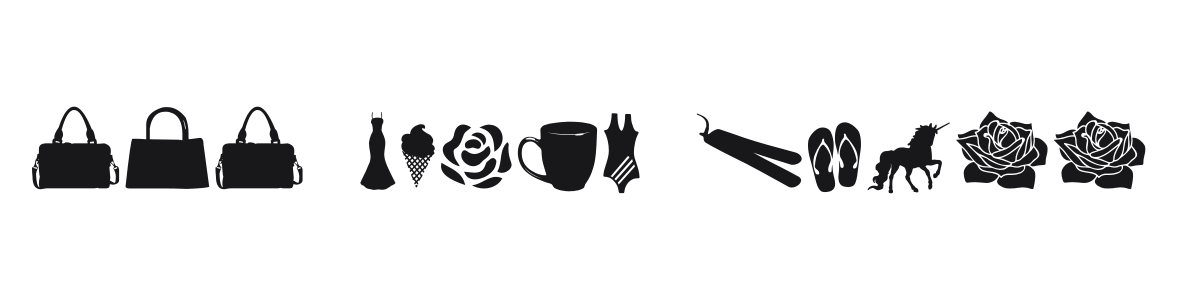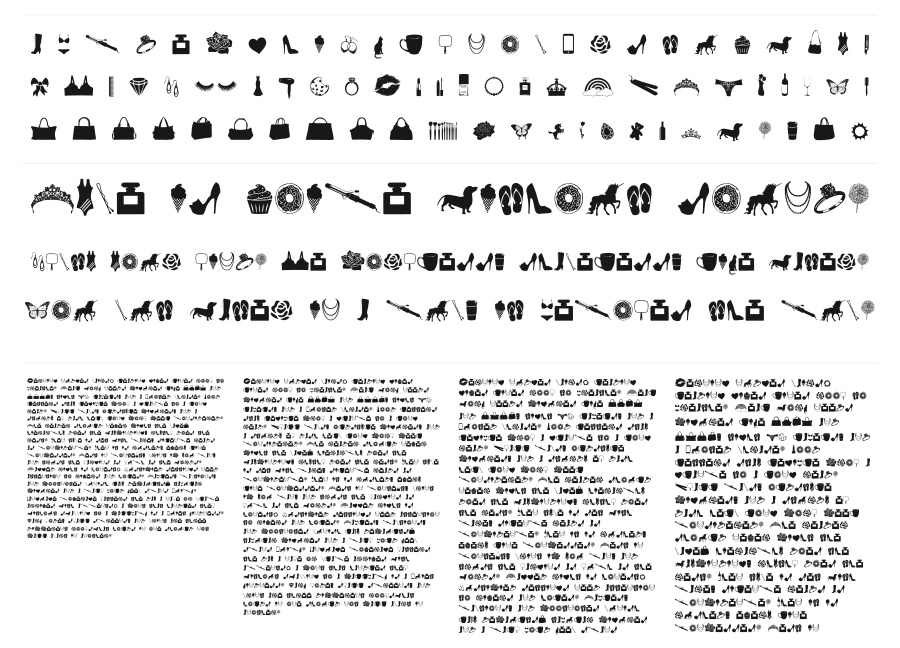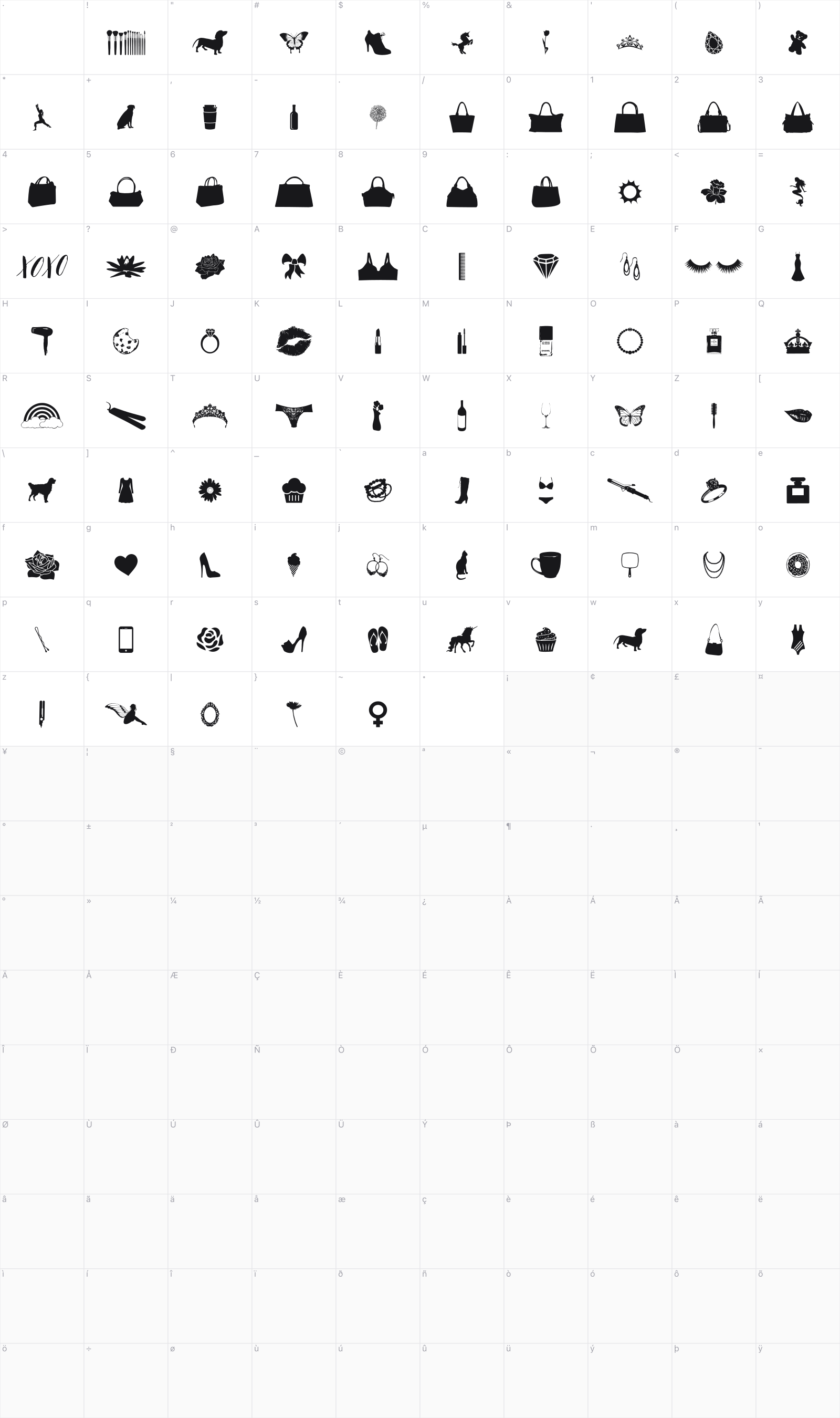
212 Girly Stuff
212 Girly Stuff is a dingbat font packed with bold silhouette icons of feminine objects: shoes, roses, unicorns, pearls, perfume, and sweet treats. Every character maps to a clean black pictogram, making it easy to drop themed graphics directly into any layout. A handy toolkit for beauty branding, party invitations, or decorative pattern work.